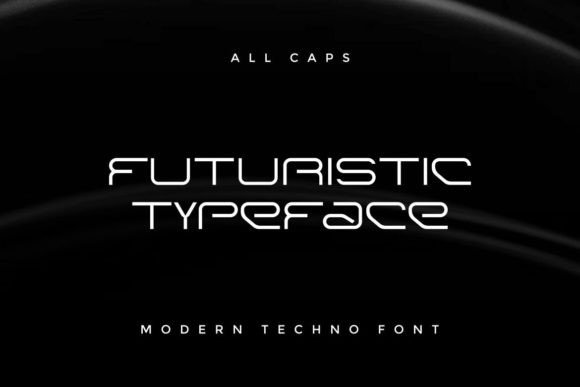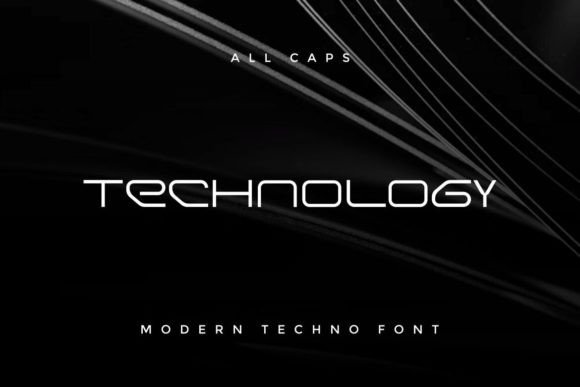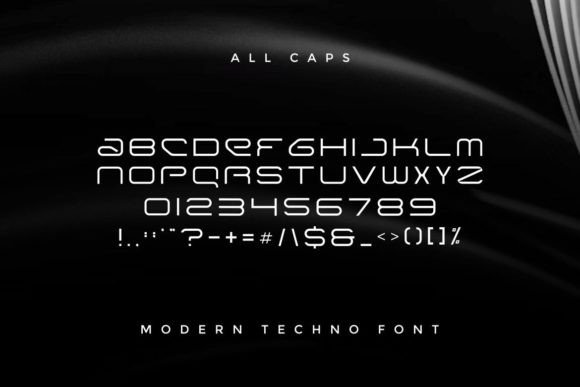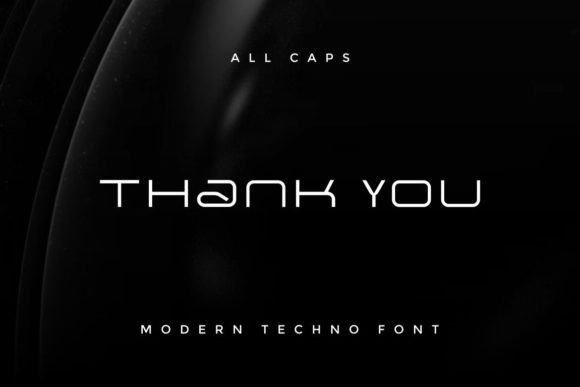
Introduction to Sexavied Font
You’re in the midst of brainstorming a creative project, and you want to make a lasting impression. Your design is coming together, but something’s missing – a font that exudes modernity and sophistication. That’s where the Sexavied Font comes in, a sleek techno font designed to give your projects a high-tech vibe.
With its clean lines and futuristic style, the Sexavied Font is the perfect design resource for any project. Whether you’re creating websites, posters, or logos, this high-quality font adds a touch of contemporary flair that’s sure to stand out. Plus, with a transparent background, you can easily integrate it into any design without distractions.
Key Features of Sexavied Font
• High-quality font design, ideal for creative projects that require a unique and stylish touch.
• Features a transparent background, allowing for seamless integration into any design project.
• Designed with a high resolution of 300 DPI, ensuring crisp and clear text even when scaled up or down.
• Includes a comprehensive character set, including uppercase and lowercase letters, numbers, and punctuation marks.
• Perfect for designers looking for a high-quality design resource that can elevate their creative project to the next level.
Honest Review: Sexavied Font
I recently stumbled upon the Sexavied Font and was excited to give it a try. As a designer, I’m always on the lookout for high-quality design resources to elevate my creative projects.
Here are some things that work well with the Sexavied Font:
• ✨ Unique and modern aesthetic: The font has a distinct, edgy feel that sets it apart from more traditional fonts.
• ✨ High-quality design: The font is well-crafted and easy to read, even at smaller sizes.
• ✨ Transparent background: This makes it easy to overlay text on top of images or other design elements.
• ⚠️ Limited character set: The font only includes a basic set of characters, which may not be suitable for complex text or languages with non-Latin scripts.
• ⚠️ Not ideal for small text: While the font is high-quality, it may not be the best choice for very small text sizes due to its bold, modern design.
Sexavied Font is ideal for creative projects such as blog posts, social media graphics, and marketing materials. Its unique typography can help you stand out and grab the attention of your audience.